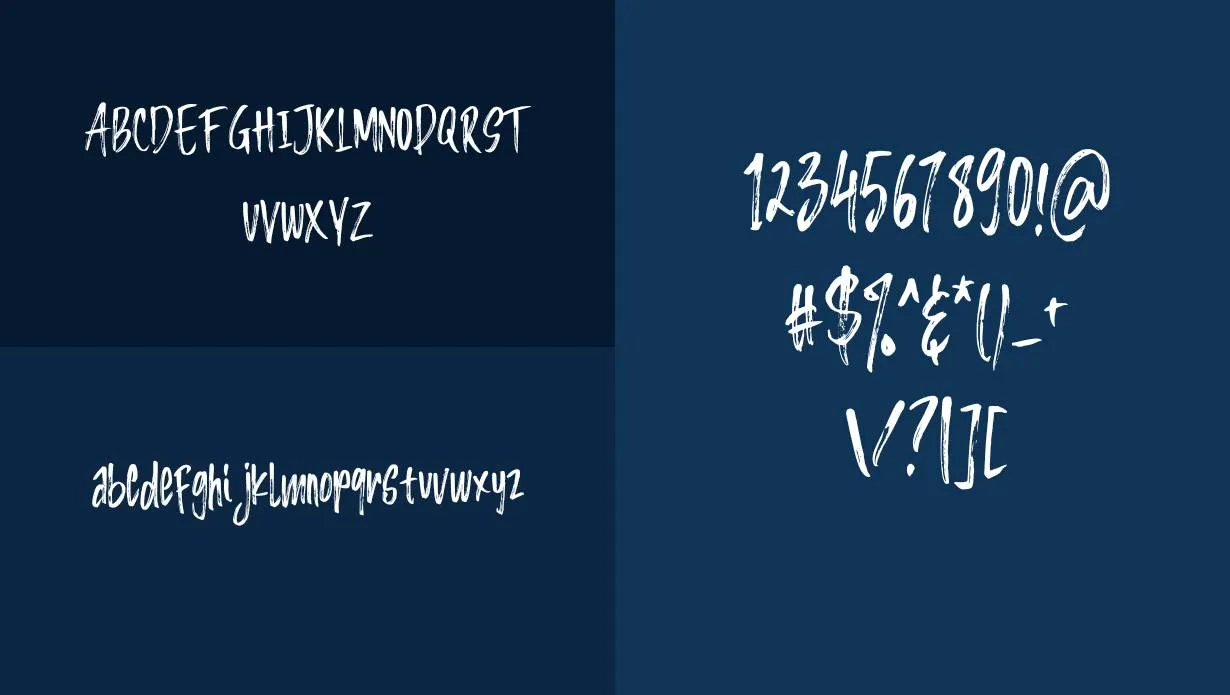
Molly font is the sunshine in text form, radiating a cheerful aura through your words. Ideal for creating a welcoming atmosphere in messages or designs, it’s the font version of a sunny day.
Molly’s soft and inviting weight, along with its casually proportioned width, turns your text into a friendly greeting, ensuring your words are met with a warm and joyful reception.